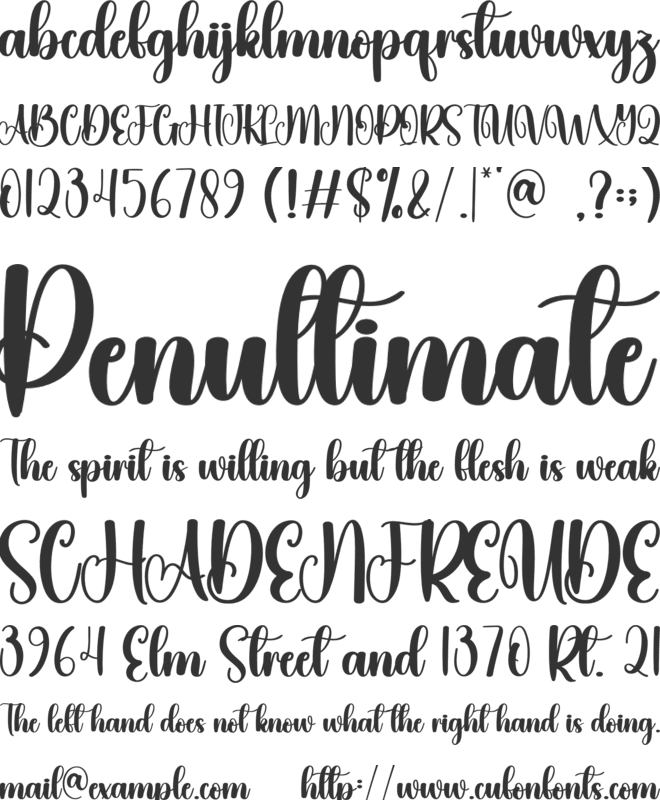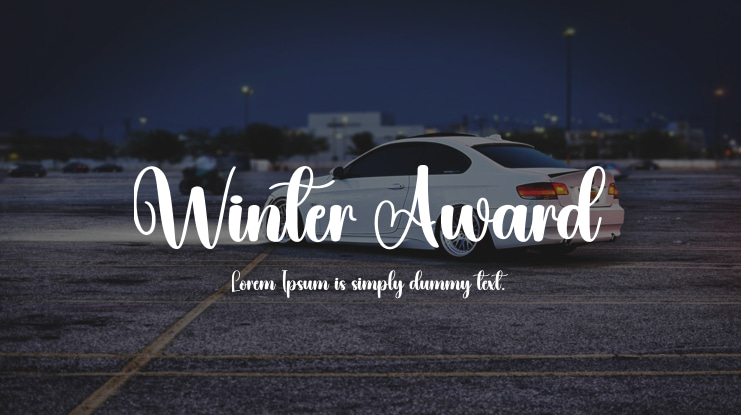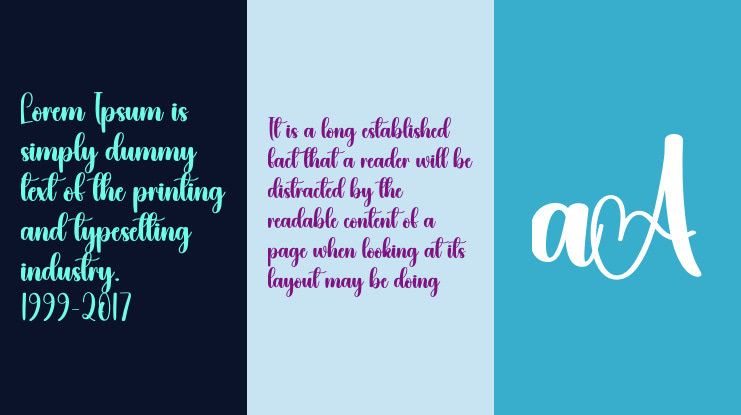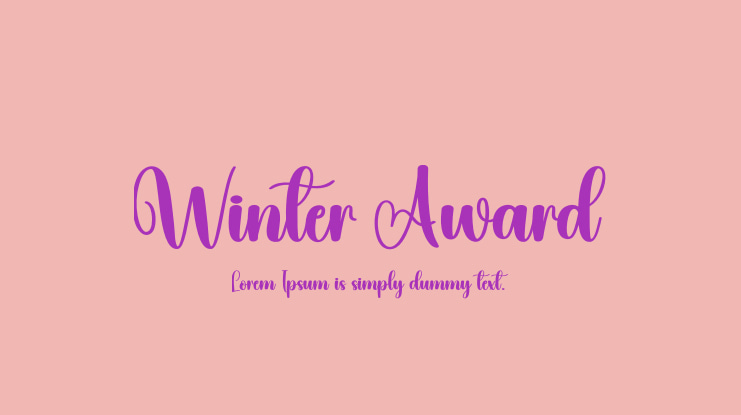
Winter Award Font
The latest style letters are perfect for wall displays, wedding invitations, social media post logos, advertisements, product packaging, product designs, labels, photography, watermarks, invitations, stationery, and any project that requires tasteful handwriting.